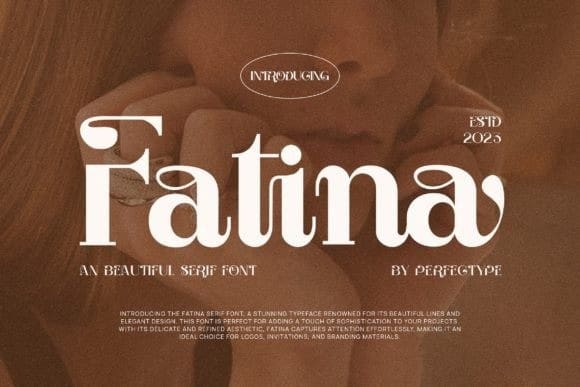
Fatina Font
Fatina Font, an elegant serif typeface, brings sophistication to your projects with its timeless design. The graceful curves and classic details make it a perfect choice for adding a touch of refinement to any text. Whether you’re working on invitations, branding, or other creative endeavors, Fatina’s simple yet stylish demeanor elevates your typography effortlessly. Embrace a touch of elegance with Fatina for a polished and refined visual impact.